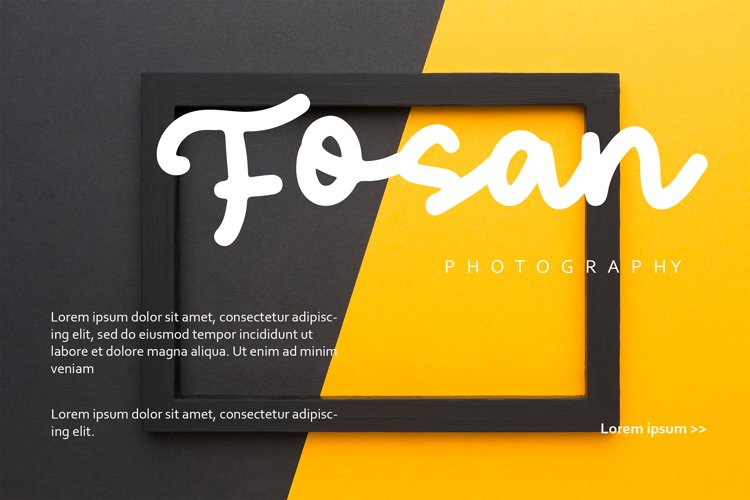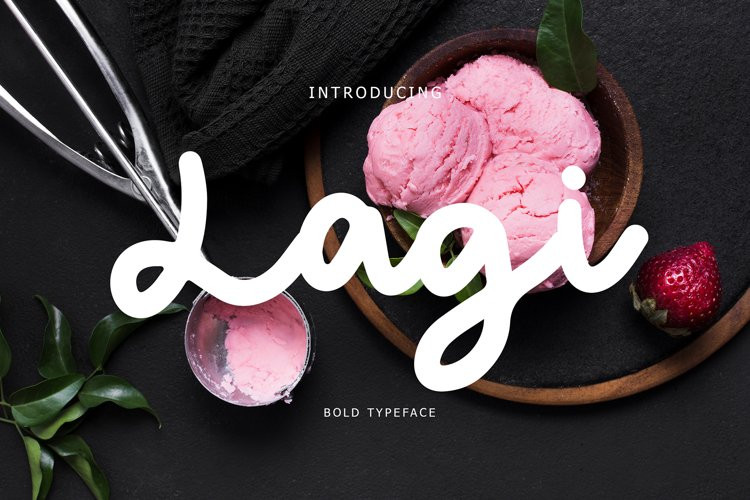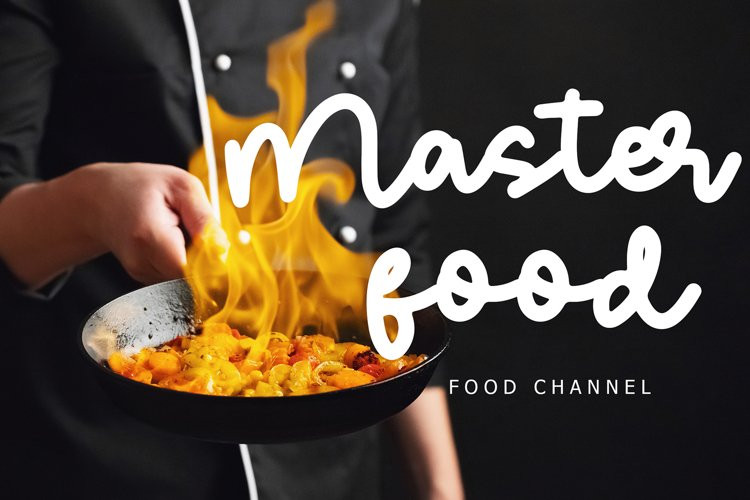
Lagi Font
Lagi FontLagi is an exciting calligraphy font with monoline bold style. Fall in love with its elegantly playful nature!
Lagi is perfect for branding projects, logo, wedding designs, social media posts, advertisements, product packaging, product designs, label, photography, watermark, invitation, stationery and any projects.